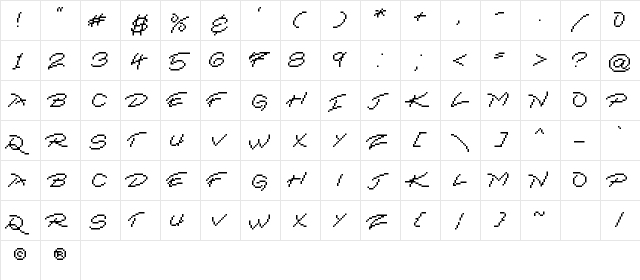
DangerousLove Medium Font Preview
DangerousLove Medium
DangerousLove Medium Font Details
Design Context for DangerousLove Typeface
DangerousLove is a composed and adaptable typeface that performs quietly and consistently across a wide range of design contexts.